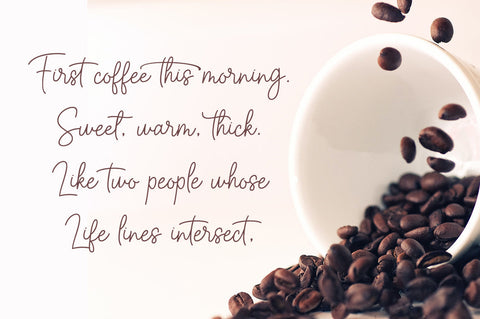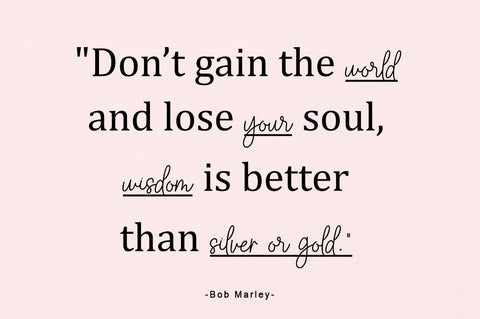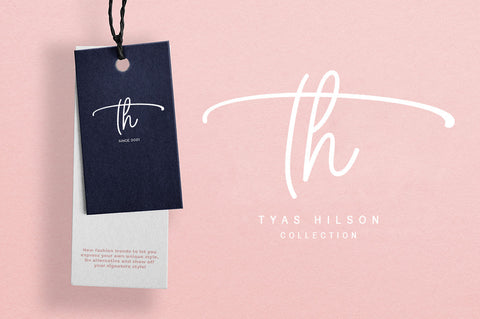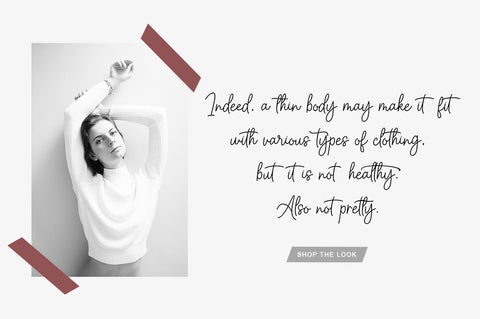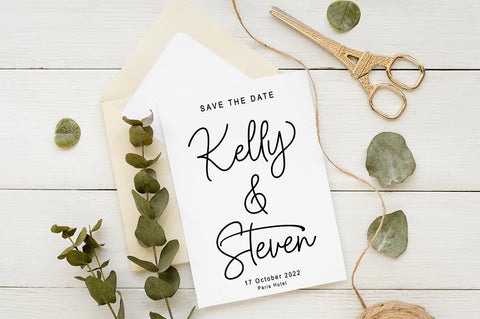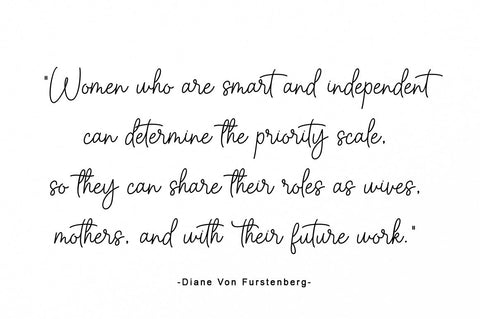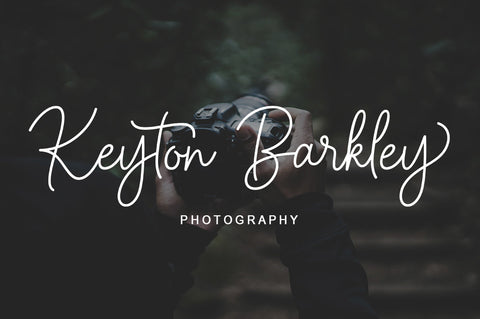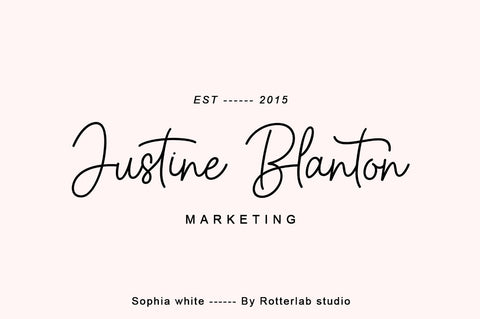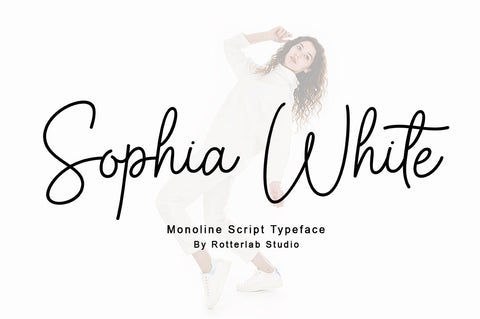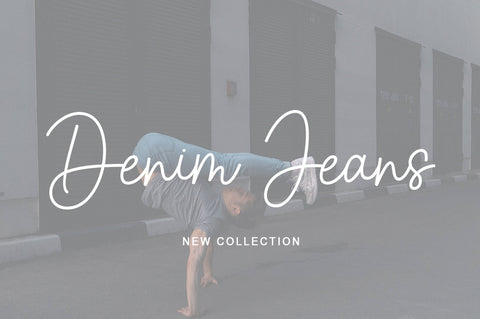
Sophia White | Monoline Script Font
Sophia White is a modern monoline script, ideal for wedding stationery, logo design, watermarks, brand design, websites, social media, marketing and more!